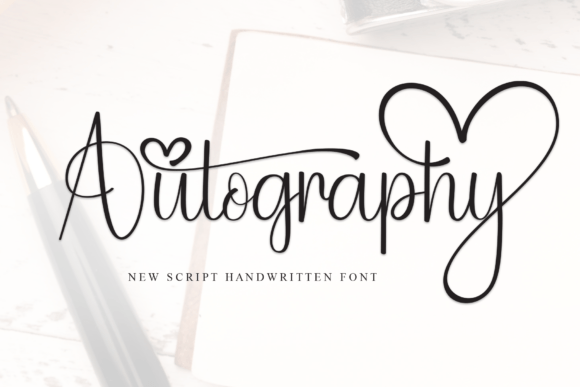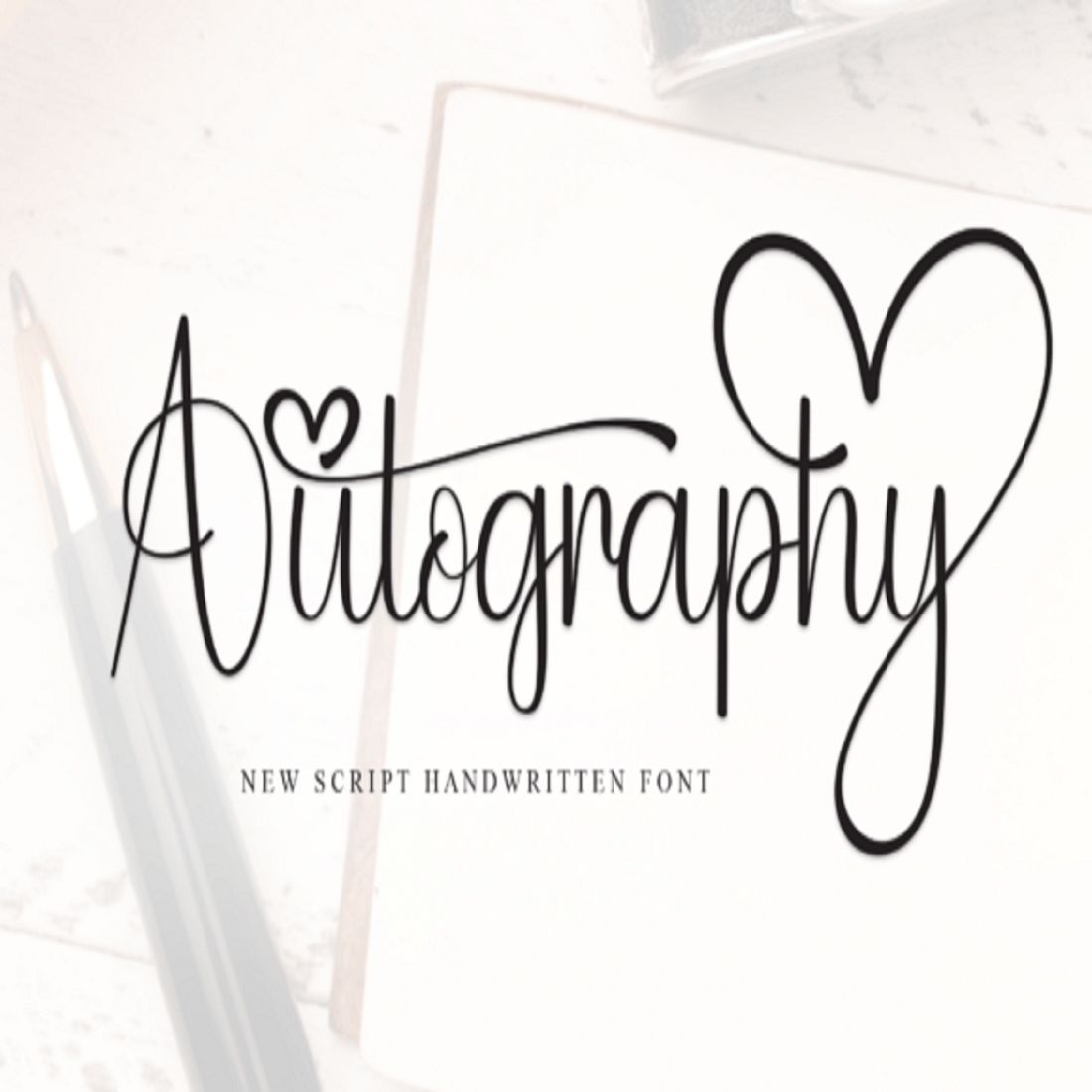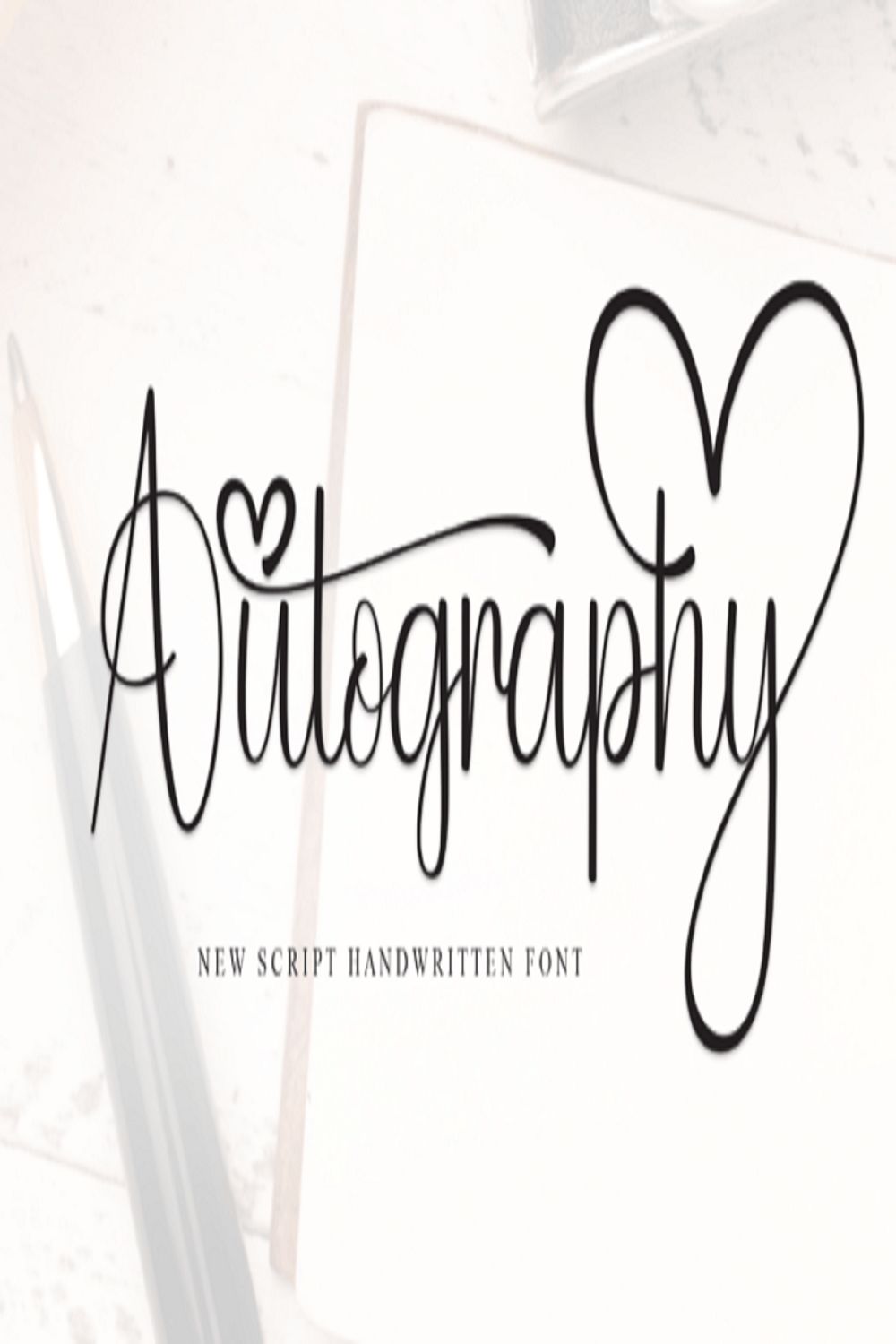
Autography is a delicate, elegant, and flowing handwritten font. It has beautiful and well-balanced characters and as a result, it matches a wide pool of designs.